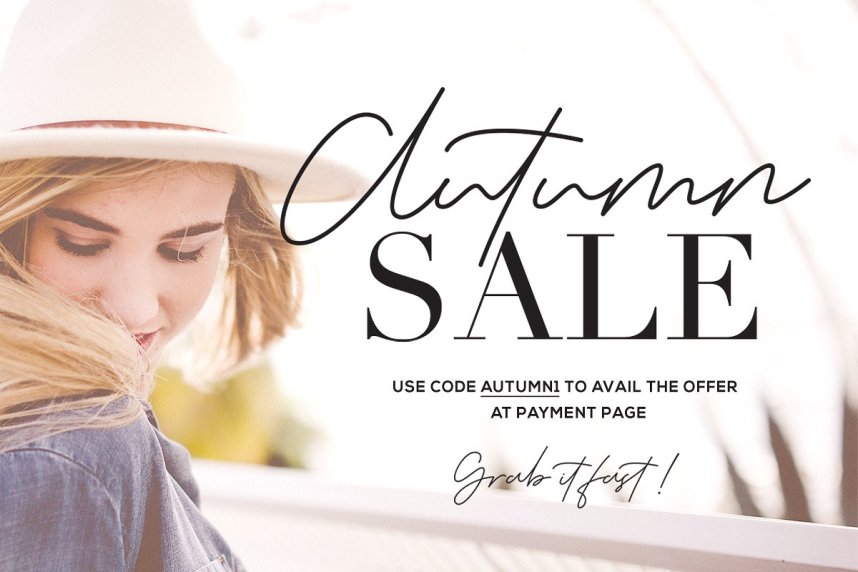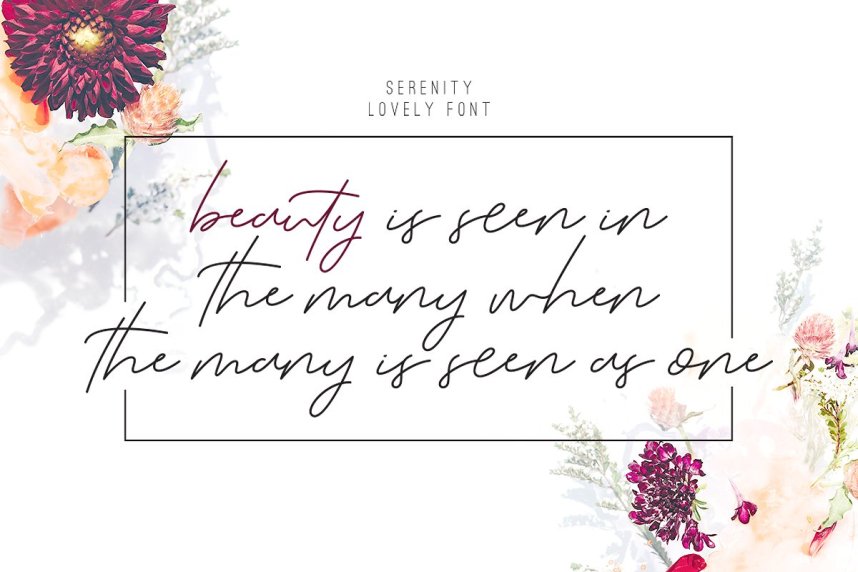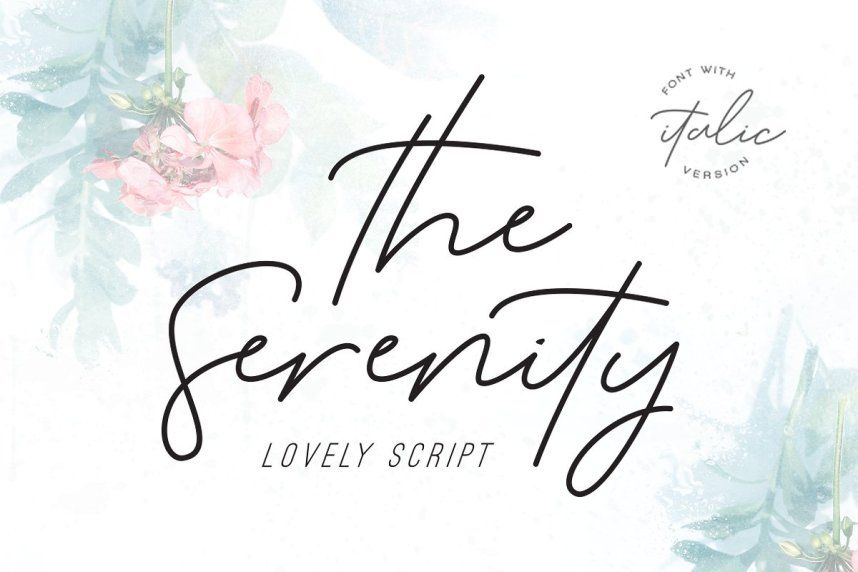
The Serenity Script Font
A modern handwriting typeface, If you are looking for a handwriting font, then it is! It will make you happy. Introducing Heavenly Font. Serenity a natural signature style font, loaded with awesome opentype features, including 39 natural looking ligatures, bold family, as well as a full alternate upper and lowercase character set and multilingual too. This font will perfect for many different project ex: logo, blogging, quotes, branding, fashion, apparel, photography, watermark, header, poster, wedding, letter, invitation, stationery, and many more!